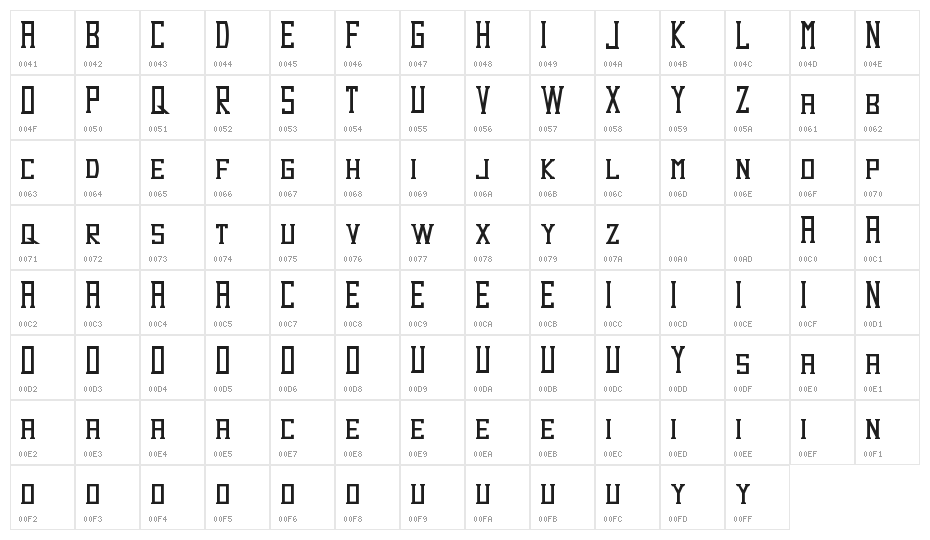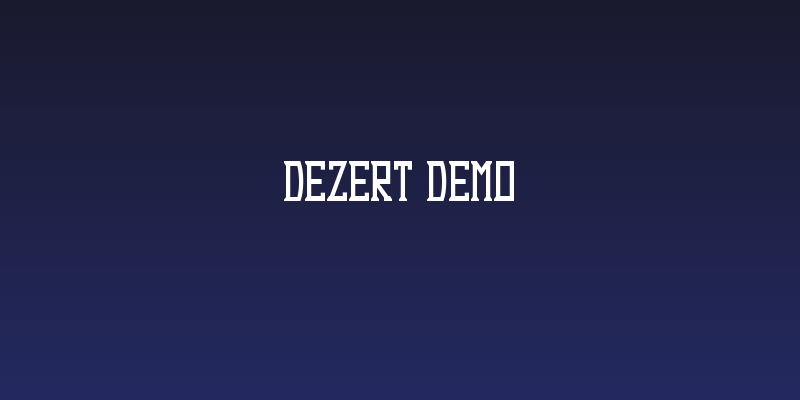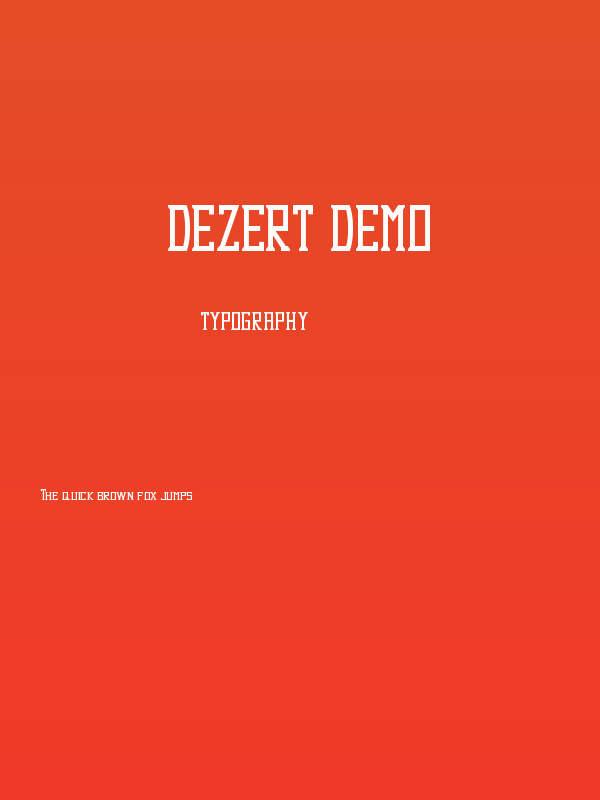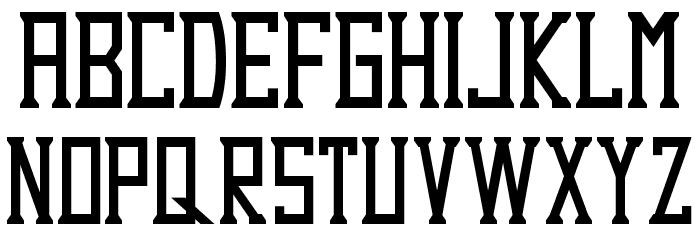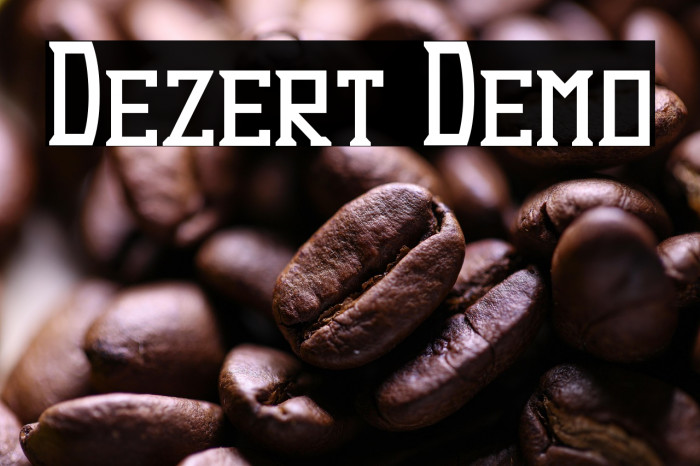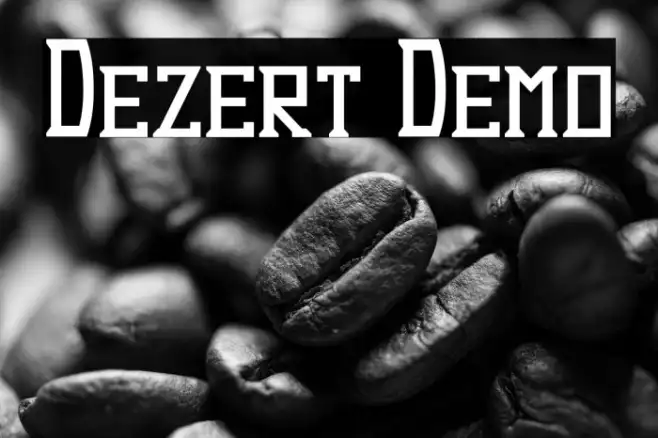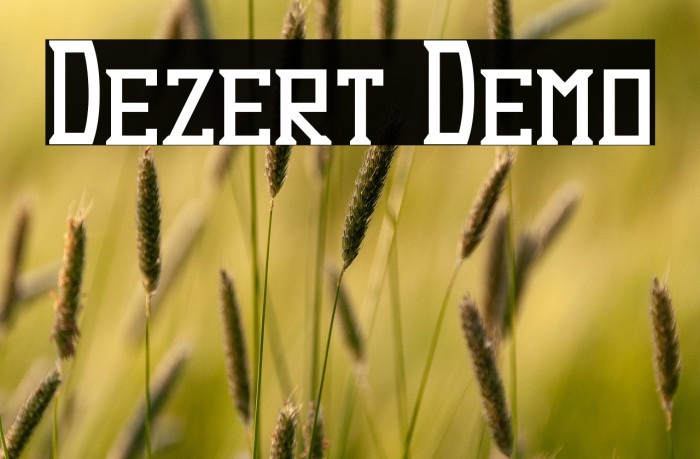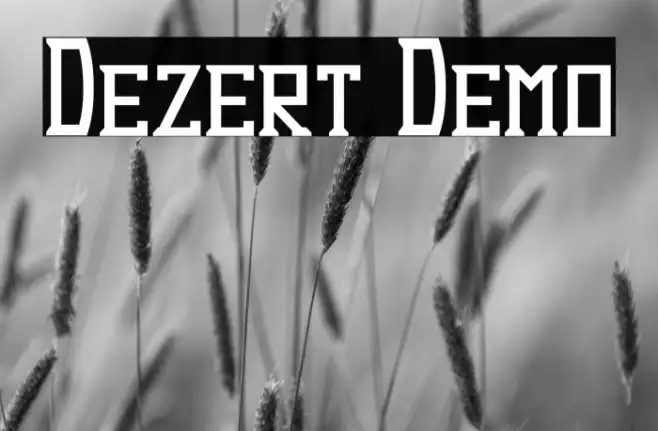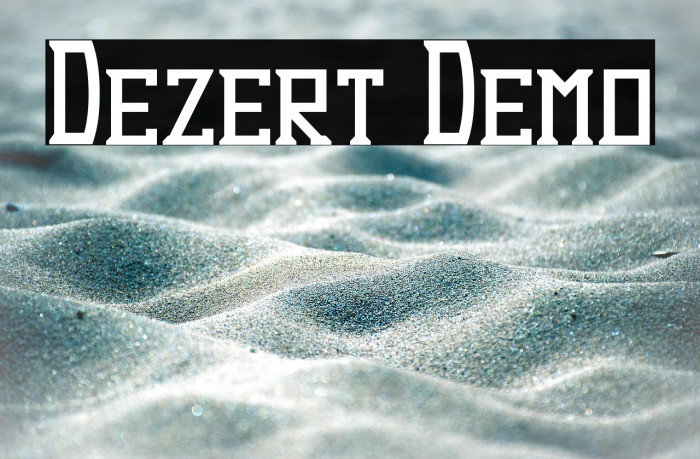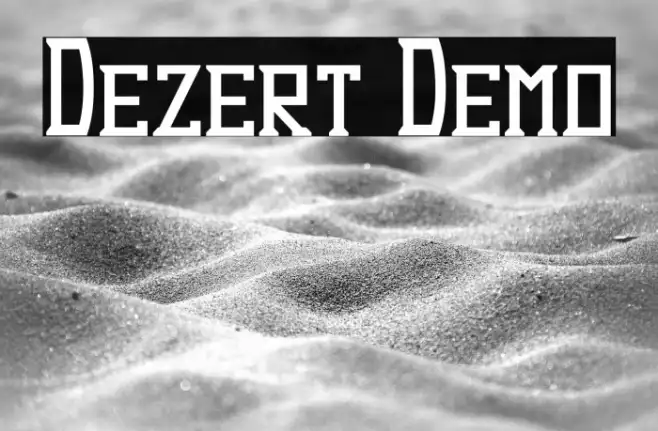
Dezert Demo Font
Dezert Demo Description
This font features a bold and geometric design with sharp, angular lines and a distinct, modern aesthetic. The characters are tall and narrow, giving them a condensed appearance. The strokes are consistent in width, providing a uniform look across all letters. The font's style is reminiscent of industrial or futuristic themes, making it suitable for projects that require a strong, impactful visual presence. The uppercase letters are particularly striking, with unique angles and cuts that add to the font's distinctive character.
| Proposed Projects | Ideal for branding, posters, and headlines that require a strong, modern look. |